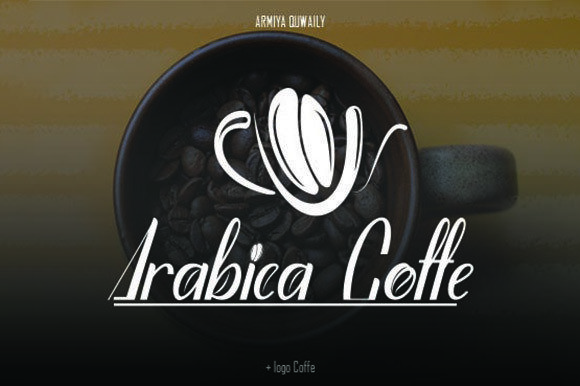
Introducing Armya Quwaily Font: Elevate Your Designs with Elegance and Versatility
In the realm of typography, a font can make or break a design. It’s the foundation upon which creativity is built, and when it comes to adding a touch of elegance and sophistication, Armya Quwaily Font stands out as a premier choice. This adaptable, distinct, and well-balanced script font is perfect for a wide array of design projects, from product packaging and branding to magazine covers, social media graphics, and wedding designs.
The Essence of Armya Quwaily Font
Armya Quwaily Font is not just any script font; it’s a versatile tool designed to bring a unique flair to your designs. Its adaptability makes it suitable for various applications, ensuring that your creative projects stand out with a professional and stylish look. Whether you’re working on a branding project that requires a distinctive touch or crafting a visually appealing social media post, Armya Quwaily Font is engineered to meet your needs.
Key Features of Armya Quwaily Font
- Adaptability: One of the key strengths of Armya Quwaily Font is its adaptability. It can seamlessly integrate into different design contexts, from digital platforms to print materials.
- Distinctiveness: In a sea of generic fonts, Armya Quwaily stands out with its unique character set. It adds a touch of personality to your designs, making them more engaging and memorable.
- Balance: The font boasts a well-balanced design, ensuring that your text is not only visually appealing but also easy to read. This balance is crucial for effective communication in any design.
Applications of Armya Quwaily Font
The versatility of Armya Quwaily Font makes it an excellent choice for a multitude of design projects. Here are some of the areas where it truly shines:
- Product Packaging: Make your product stand out on the shelves with elegant and distinctive packaging designs.
- Branding Projects: Establish a strong brand identity with a font that communicates sophistication and uniqueness.
- Magazine Covers: Capture the essence of your magazine’s content with a font that promises intrigue and professionalism.
- Social Media: Elevate your social media presence with visually appealing posts and stories that reflect your brand’s personality.
- Wedding Designs: Add a touch of romance and elegance to your wedding invitations, banners, and other design elements.
Why Choose Armya Quwaily Font?
In the competitive world of design, choosing the right font can be a game-changer. Armya Quwaily Font offers a unique combination of style, versatility, and readability, making it an invaluable asset for designers and crafters. Here are a few reasons why it stands out:
- Unique Style: It offers a fresh and distinctive style that can set your designs apart.
- Ease of Use: Designed to be user-friendly, it can be easily integrated into your design workflow.
- Support for Various Languages: Cater to a global audience with a font that supports multiple languages.
Armya Quwaily Font is more than just a script font; it’s a design solution that offers elegance, versatility, and a unique character. Whether you’re a professional designer or a crafter looking to add a personal touch to your projects, Armya Quwaily Font is an excellent choice. Its adaptability, distinctiveness, and balance make it perfect for a wide range of applications, from product packaging and branding to digital content creation. Elevate your designs with Armya Quwaily Font and experience the difference it can make in your creative projects.